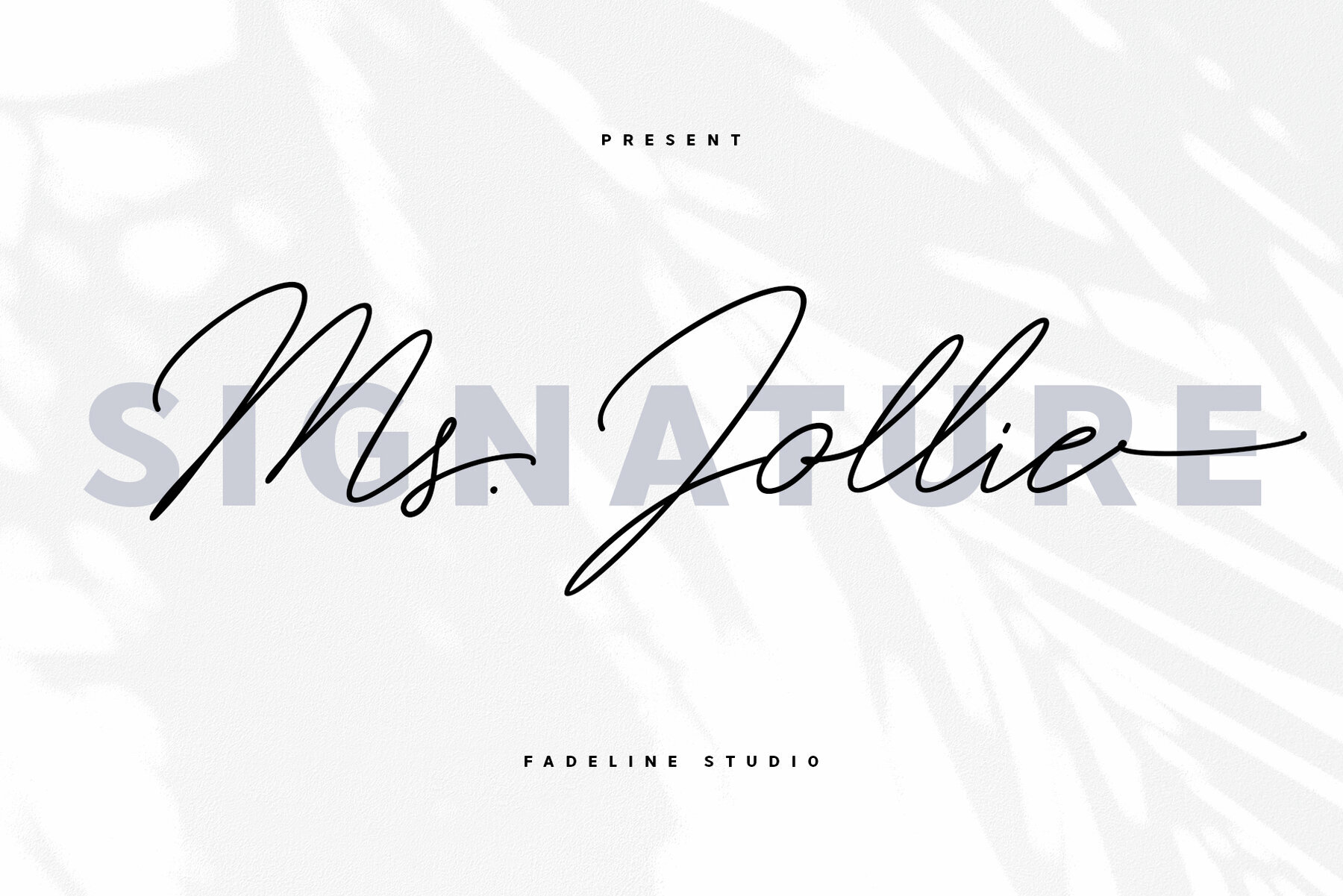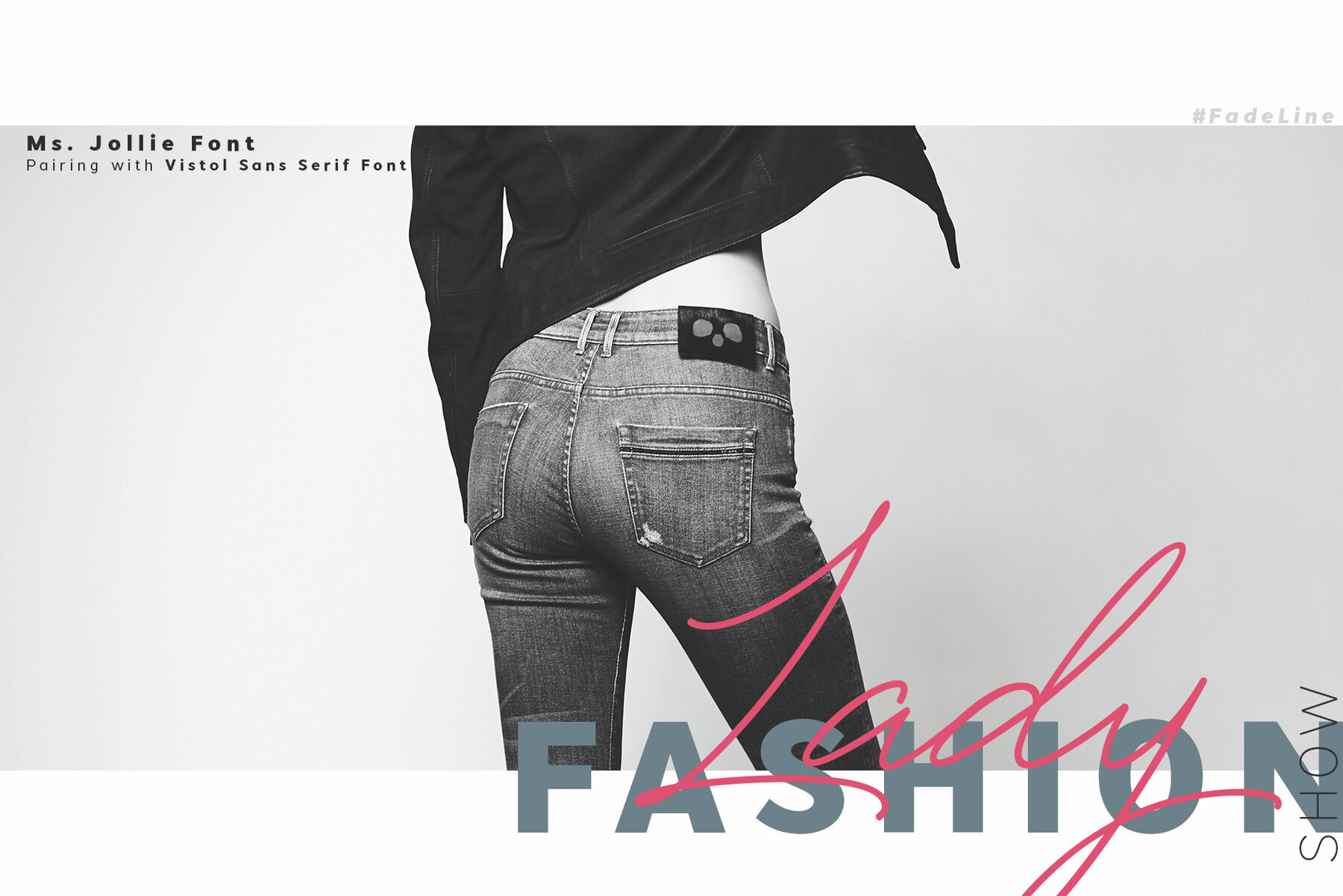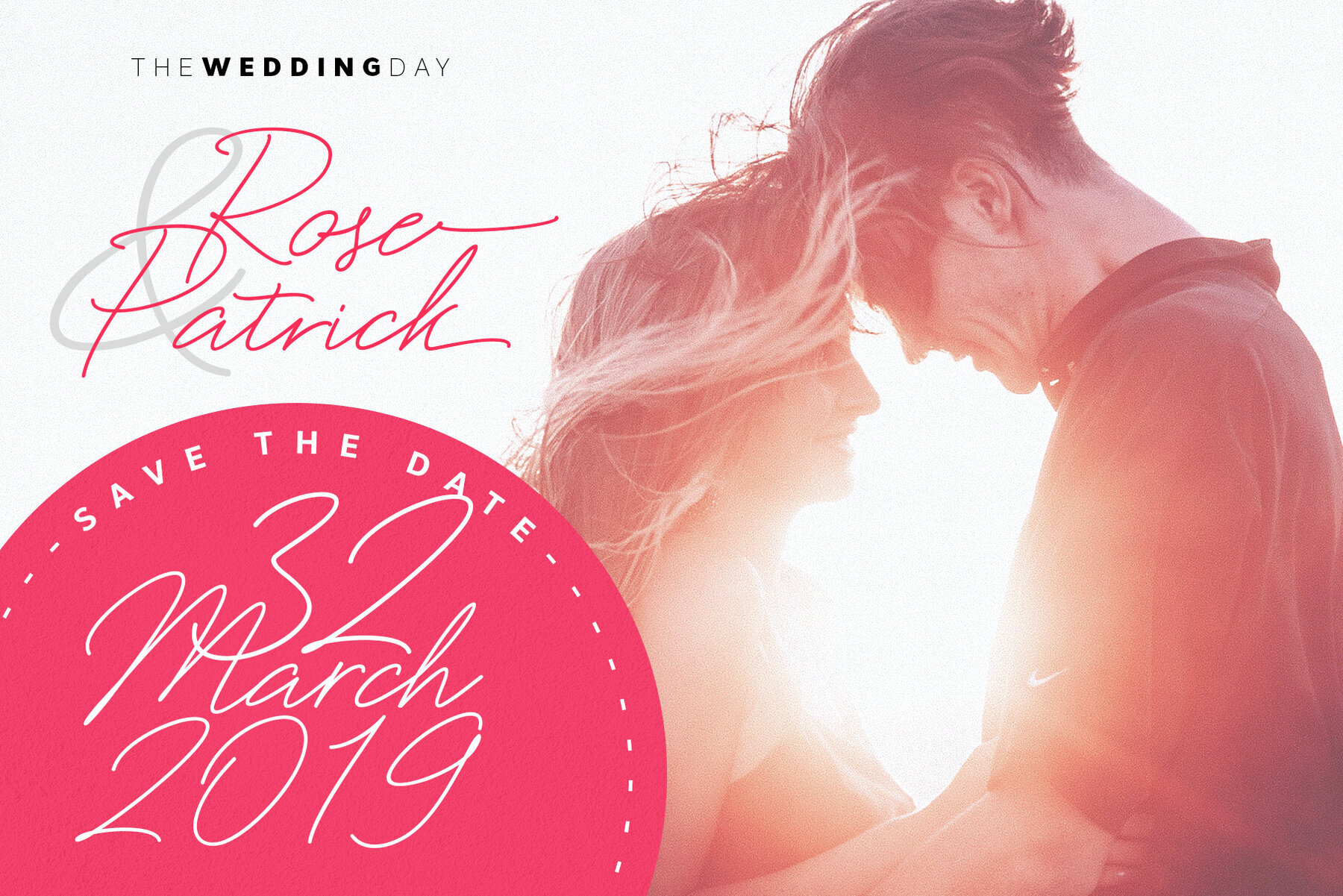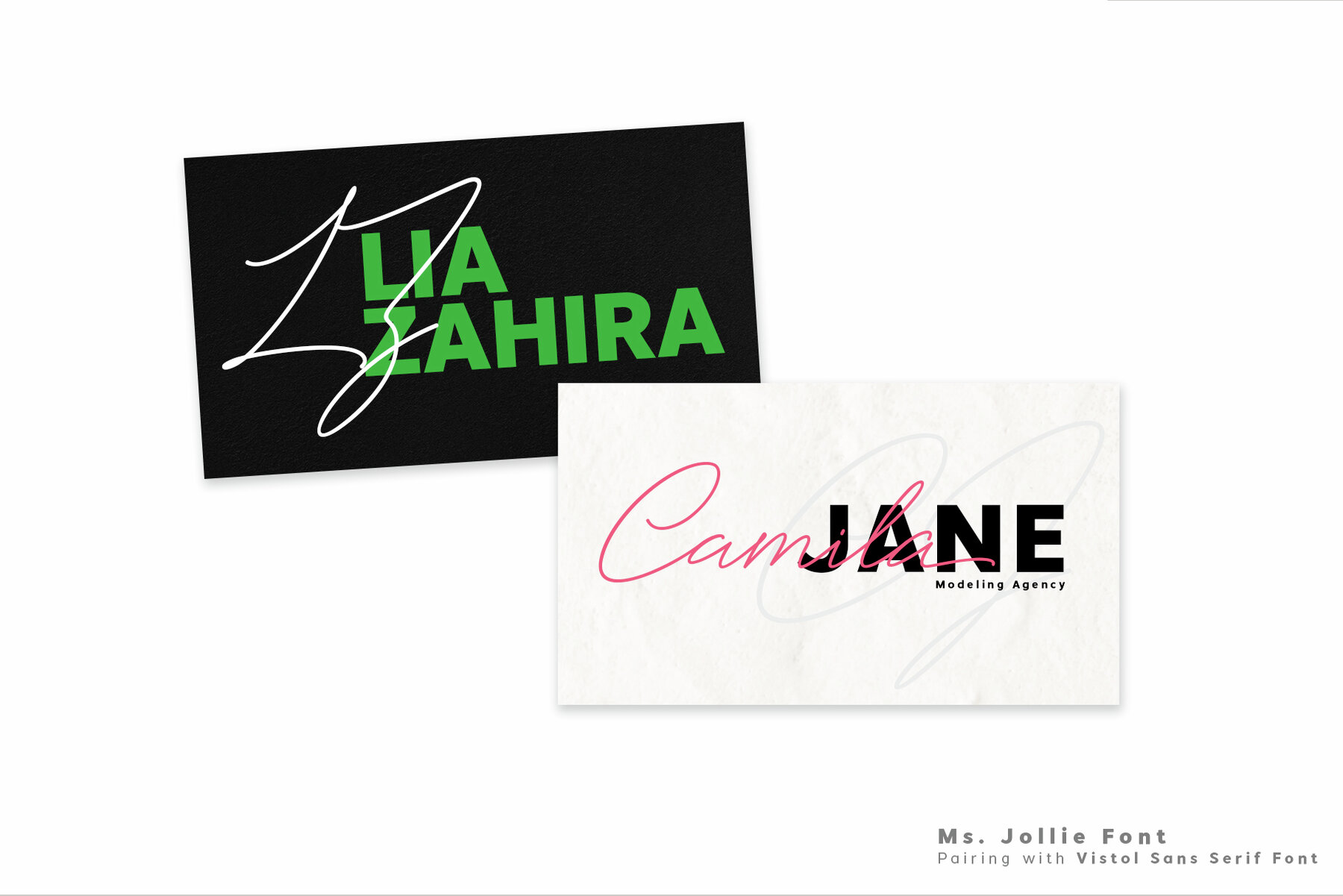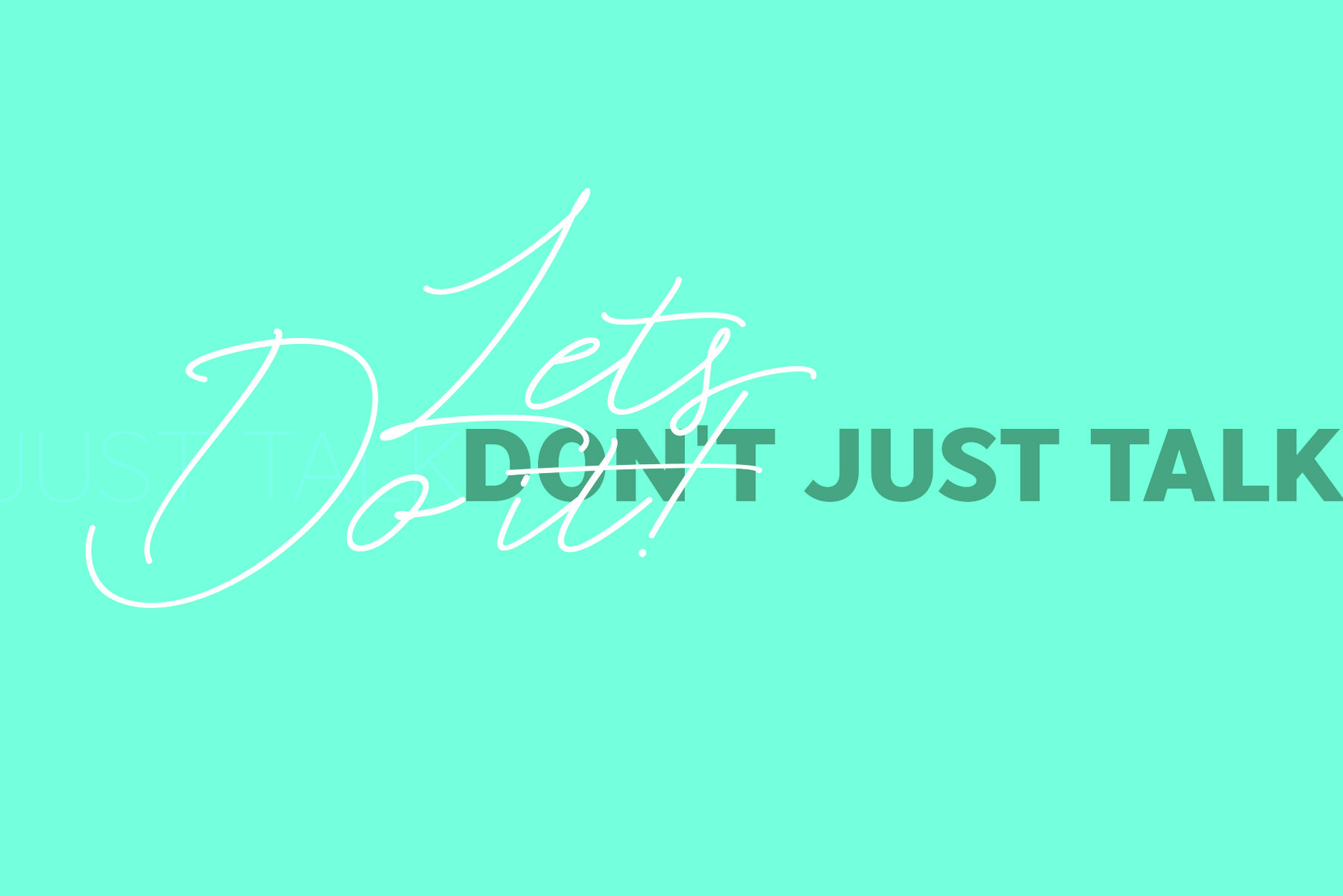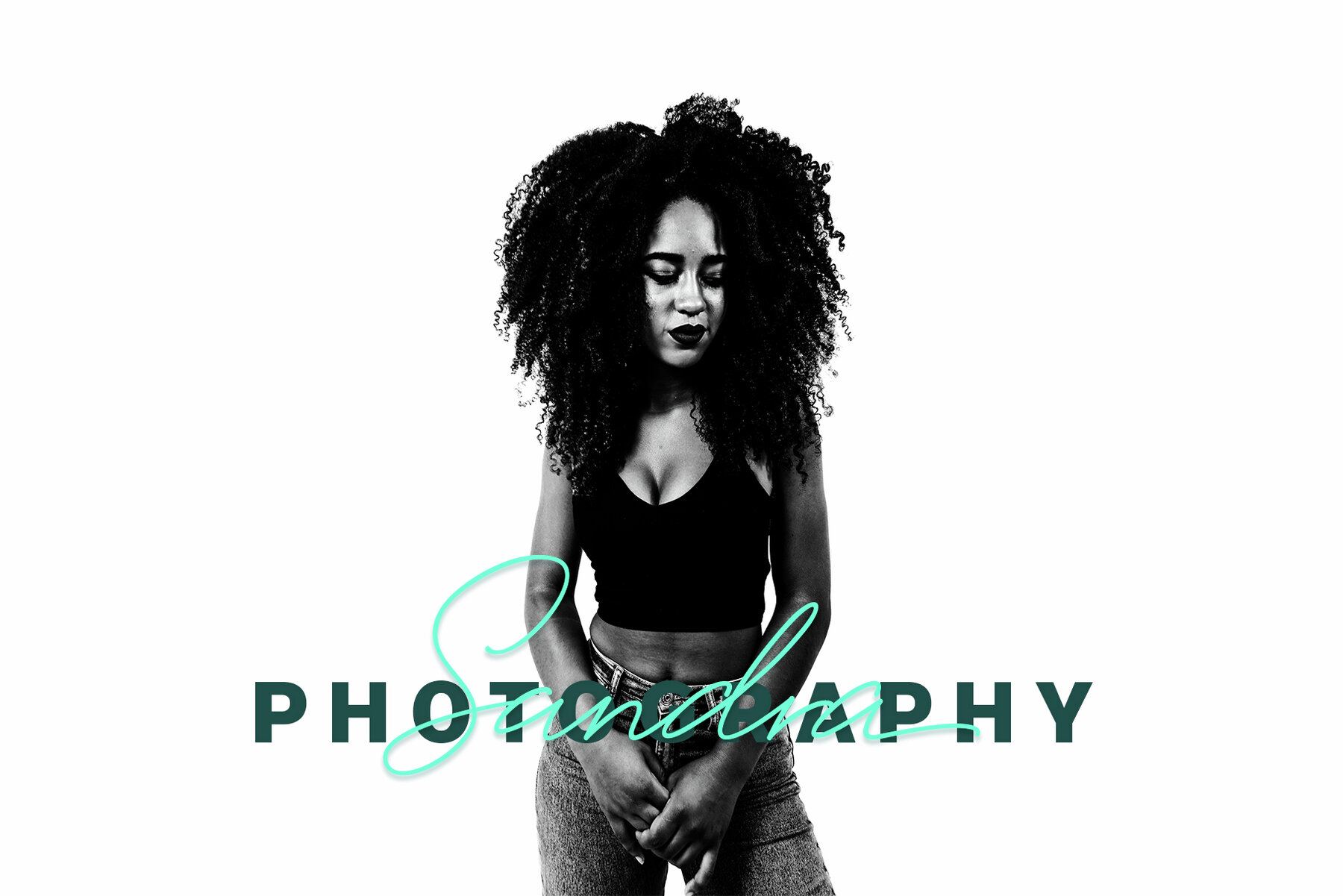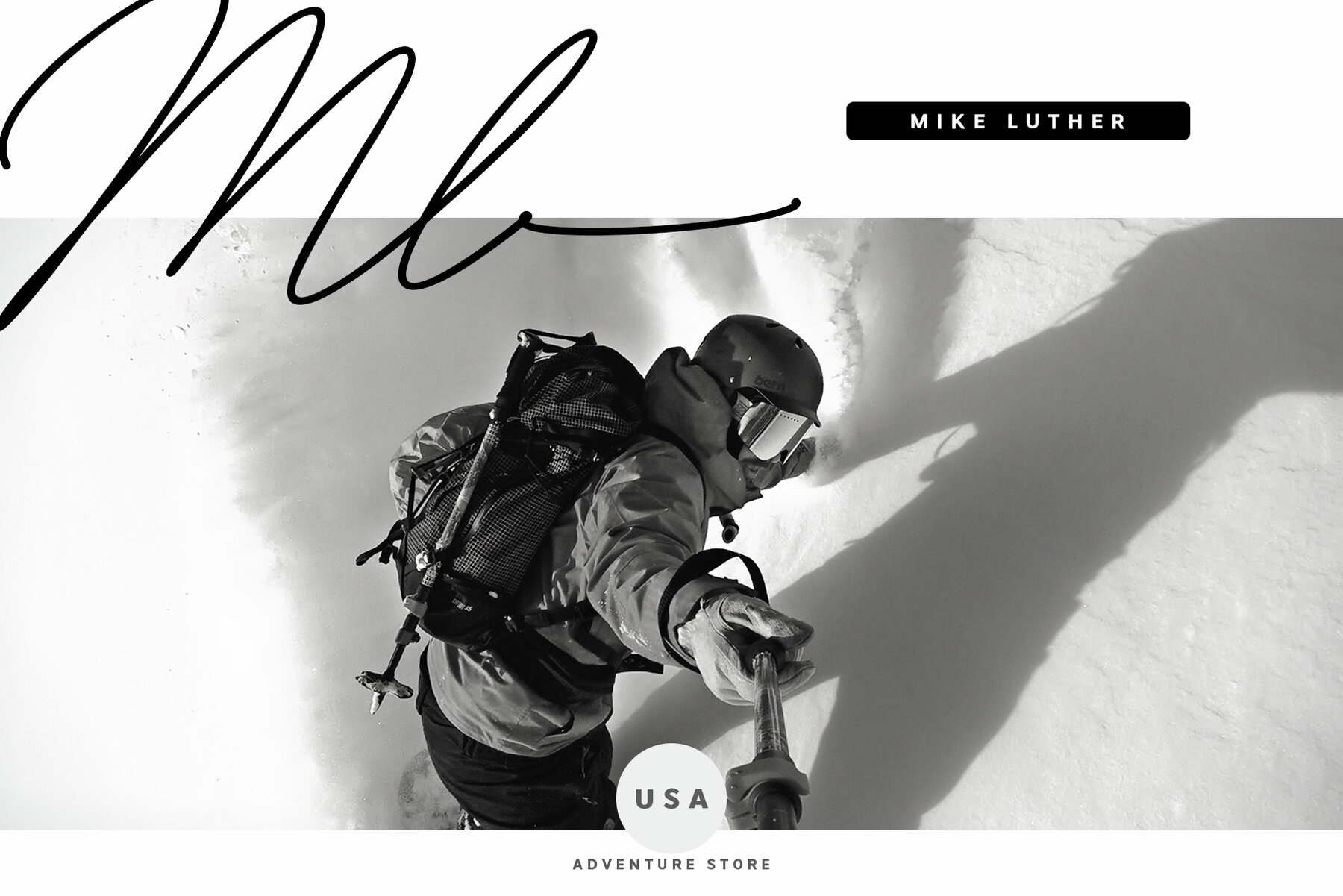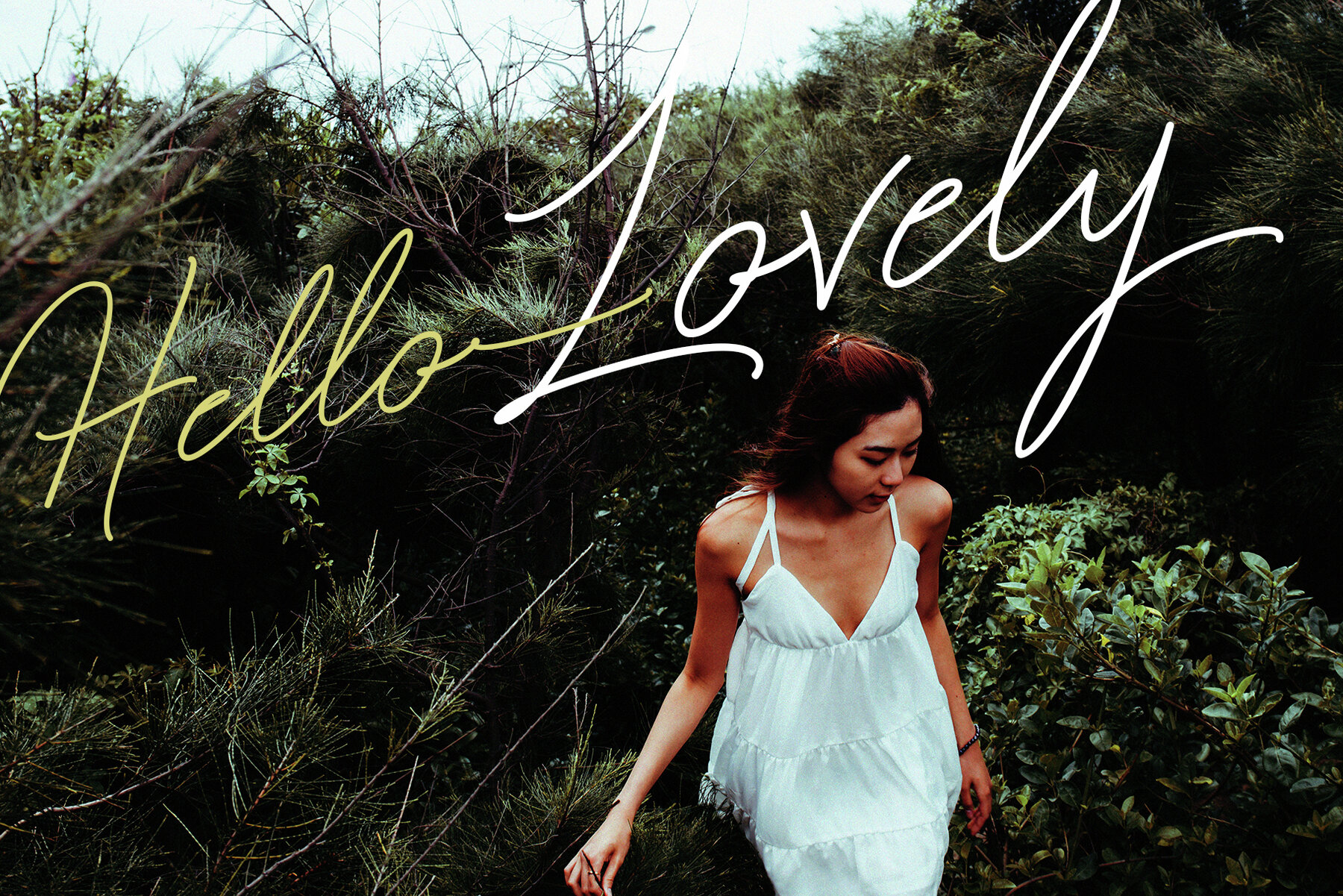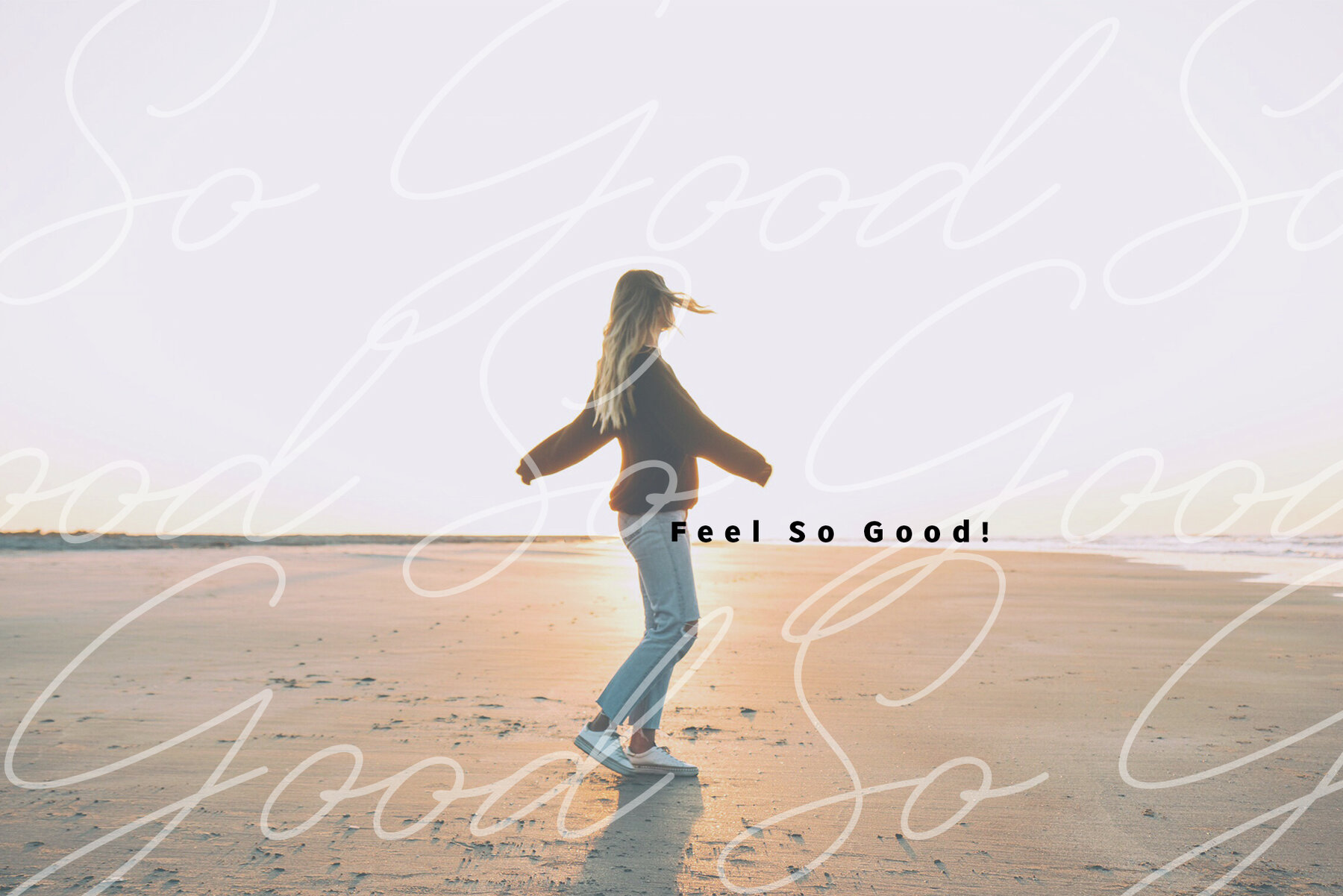
Ms. Jollie Font
Ms Jollie
Ms. Jollie, the latest masterpiece from FadeLine Studio, introduces a simple yet luxurious monoline slant style. This signature font embodies modern elegance, making it the perfect choice for a variety of creative projects. Whether you're crafting logos, branding elements, or adding a touch of sophistication to homeware designs, Ms. Jollie delivers impeccable style.Discover Ms. Jollie Signature Font
Perfect for Versatile Applications